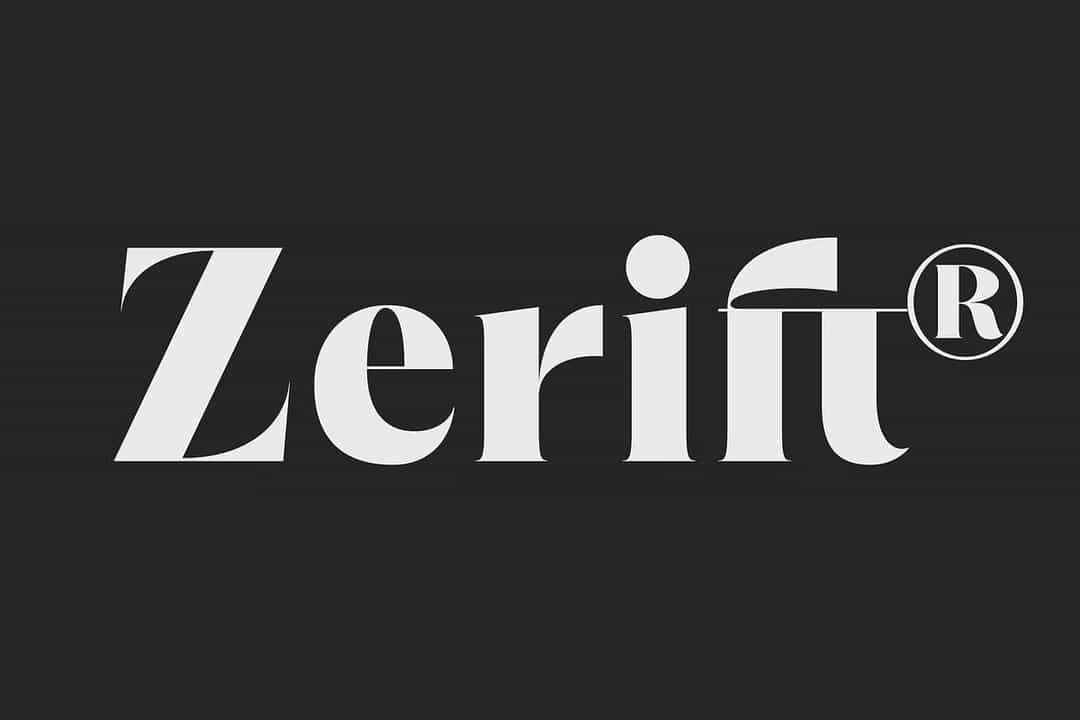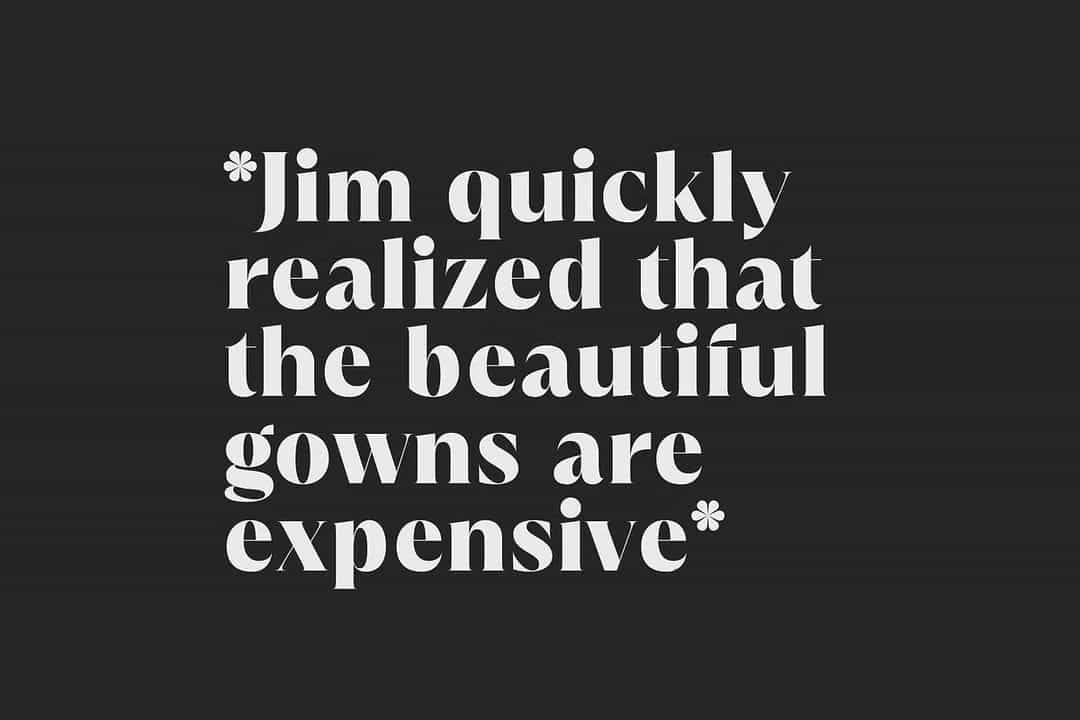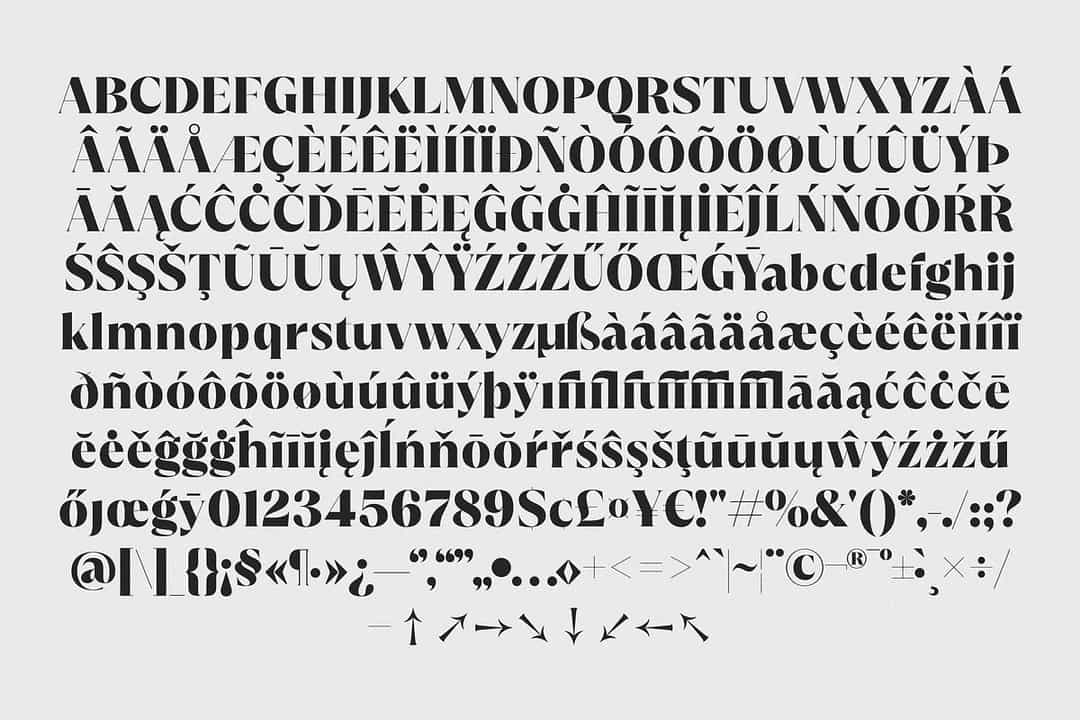
The new label Zerift epitomates the beauty of simplicity with a touch of the now. This fonts is perfectly designed to capture attention due to balance between thick and thin lines as well as fine details and is ideal for use in premium and exclusive products. Just like a suit that is made to order each of the characters has its power paired with elegance as well as conservatism with creativity.